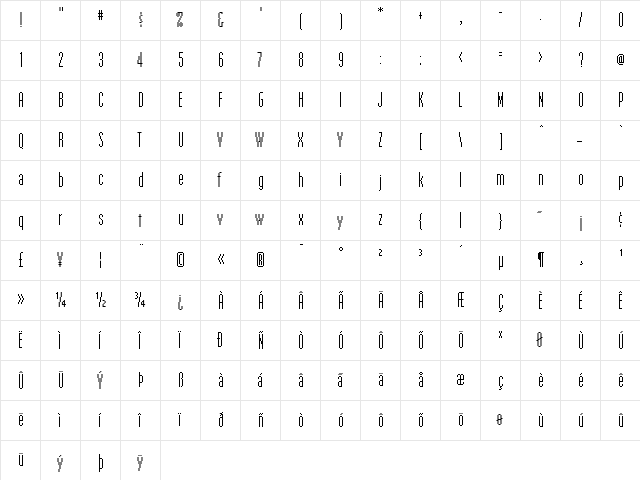
EmperorFifteen Regular Font Preview
EmperorFifteen Regular
EmperorFifteen Regular Font Details
| Year | 1988 |
| Copyright | Copyright (c) 1986, 1988 Emigre Graphics; Designed by Zuzana Licko |
Design Context for EmperorFifteen Typeface
EmperorFifteen offers clean, dependable letterforms without strong stylistic allegiance, making it a practical choice for designers who need flexibility.